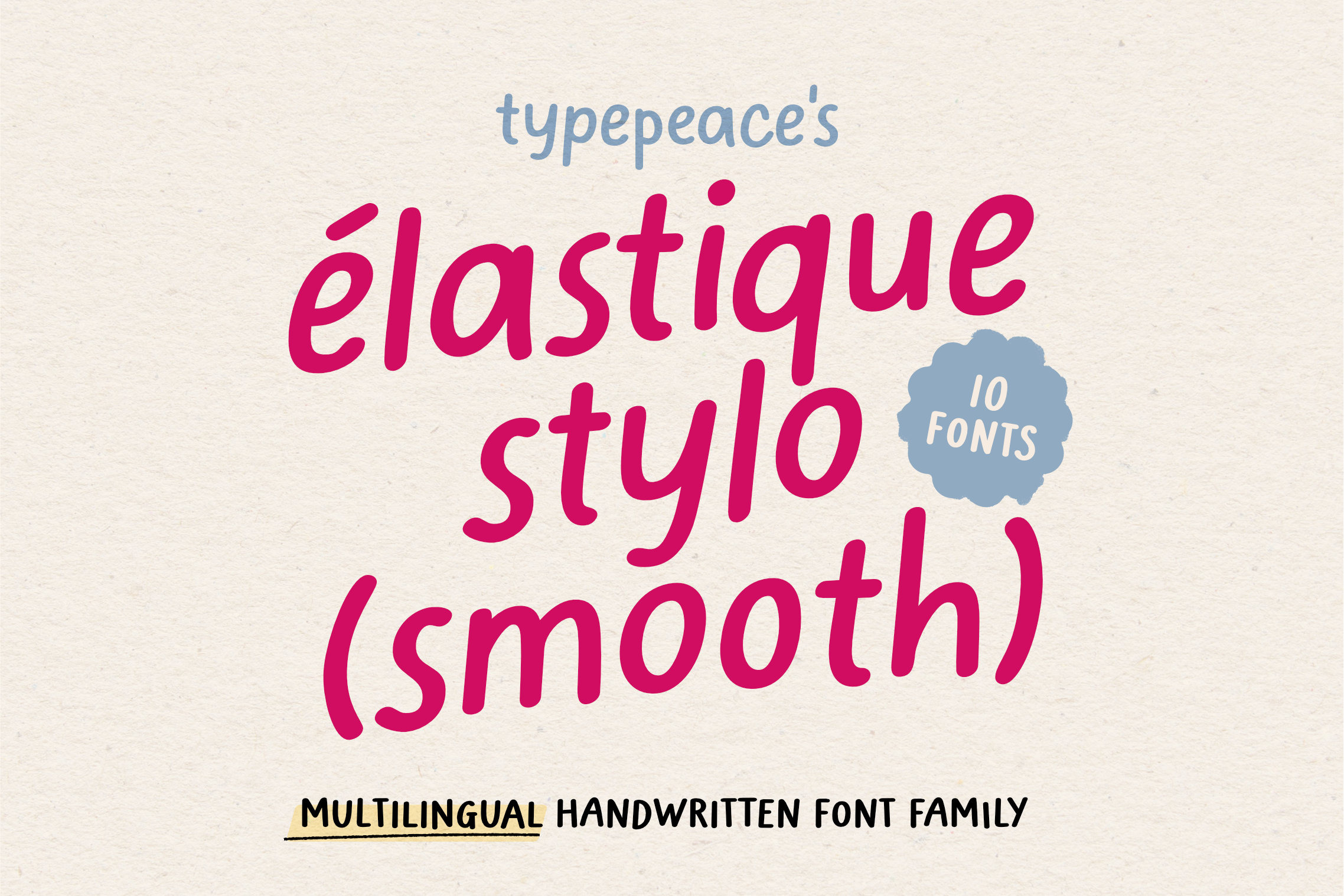
Elastique Stylo Smooth - 10 Fonts
Elastique Stylo Smooth, a sub-family of the Elastique Stylo Font Family, delivers a clean and polished handwritten style, making it ideal for designs that require a refined and effortless look. Elastique Stylo Smooth includes 10 fonts, each crafted to add elegance to your branding, stationery, or editorial projects. With multilingual support and contextual alternates, Elastique Stylo Smooth adapts seamlessly to all your creative needs.
Enable the OpenType Contextual Alternates feature to alternate between different letter versions, giving your text an authentic and realistic handwritten feel.
5 Weights - Upright & Slanted Fonts
- Light & Light Slant
- Regular & Regular Slant
- Medium & Medium Slant
- Flat & Flat Slant
- Bold & Bold Slant
Font features:
- 2 versions for each letter and number
- Punctuations and symbols with some alternates
- Opentype contextual alternates feature
Script: Latin
Supported Languages: English, Western European, Central European, Vietnamese